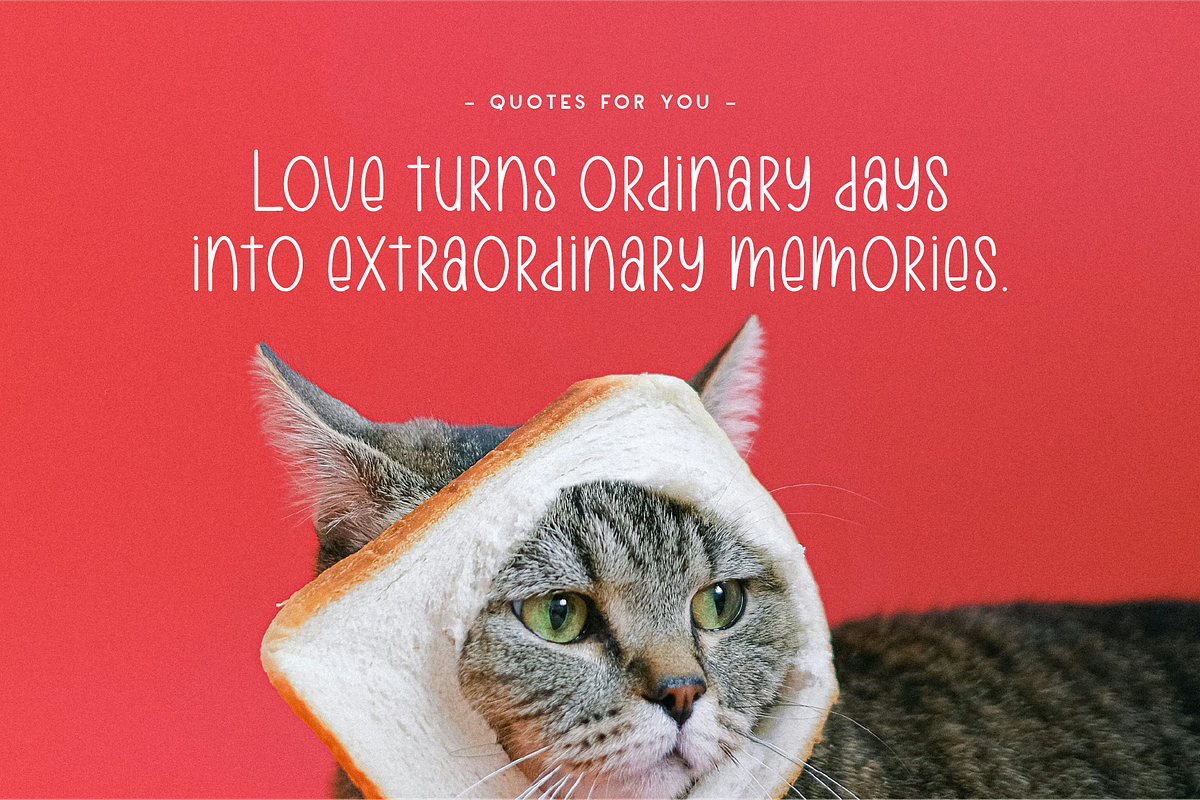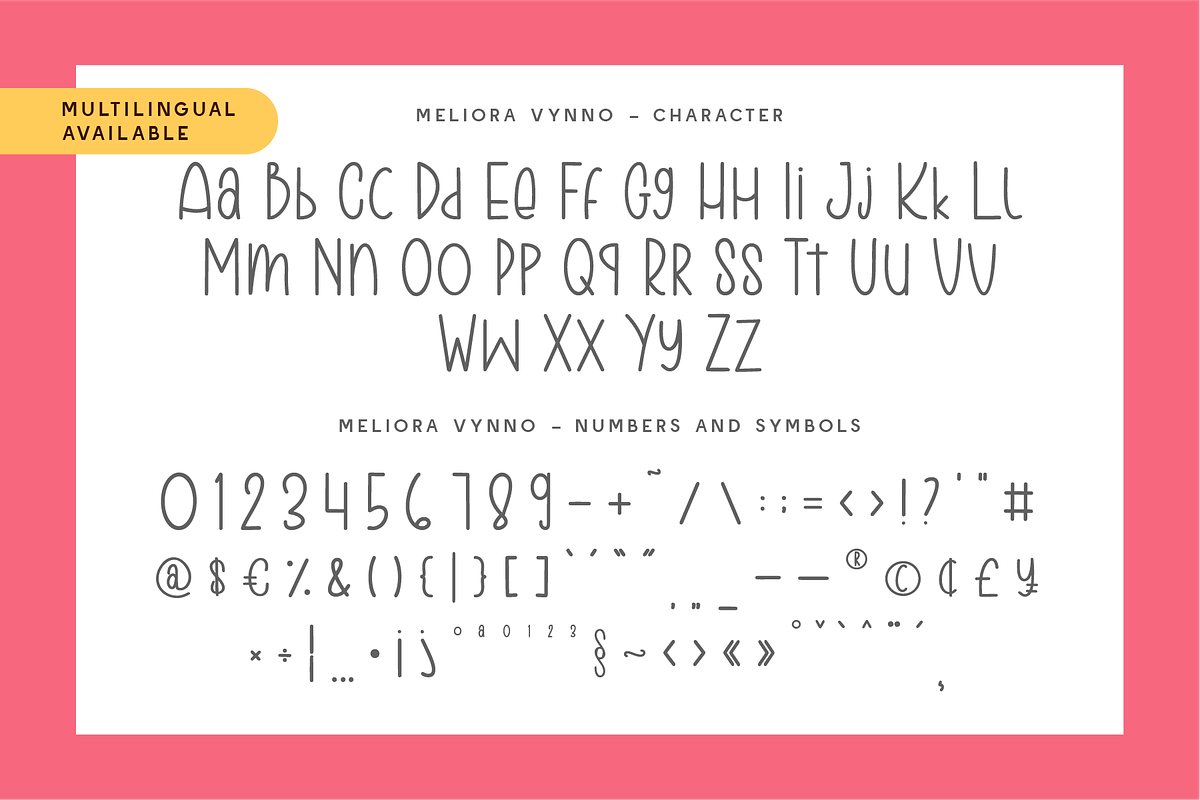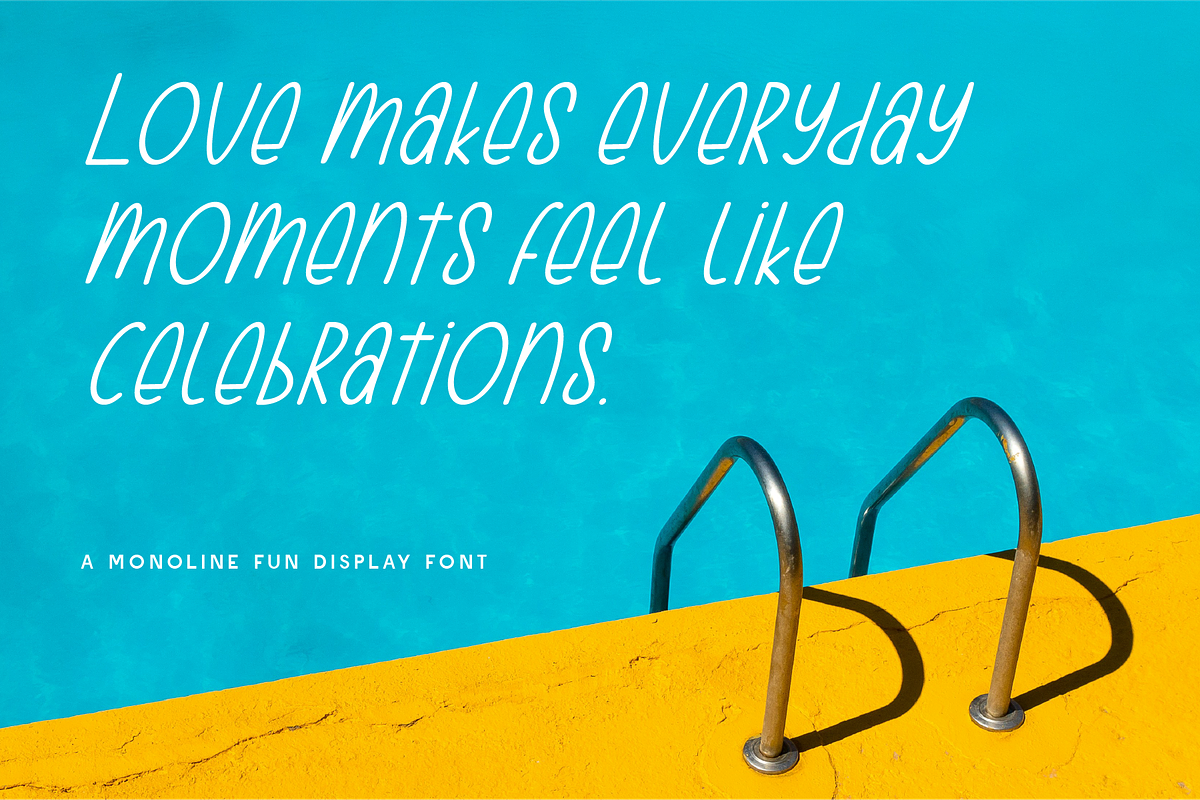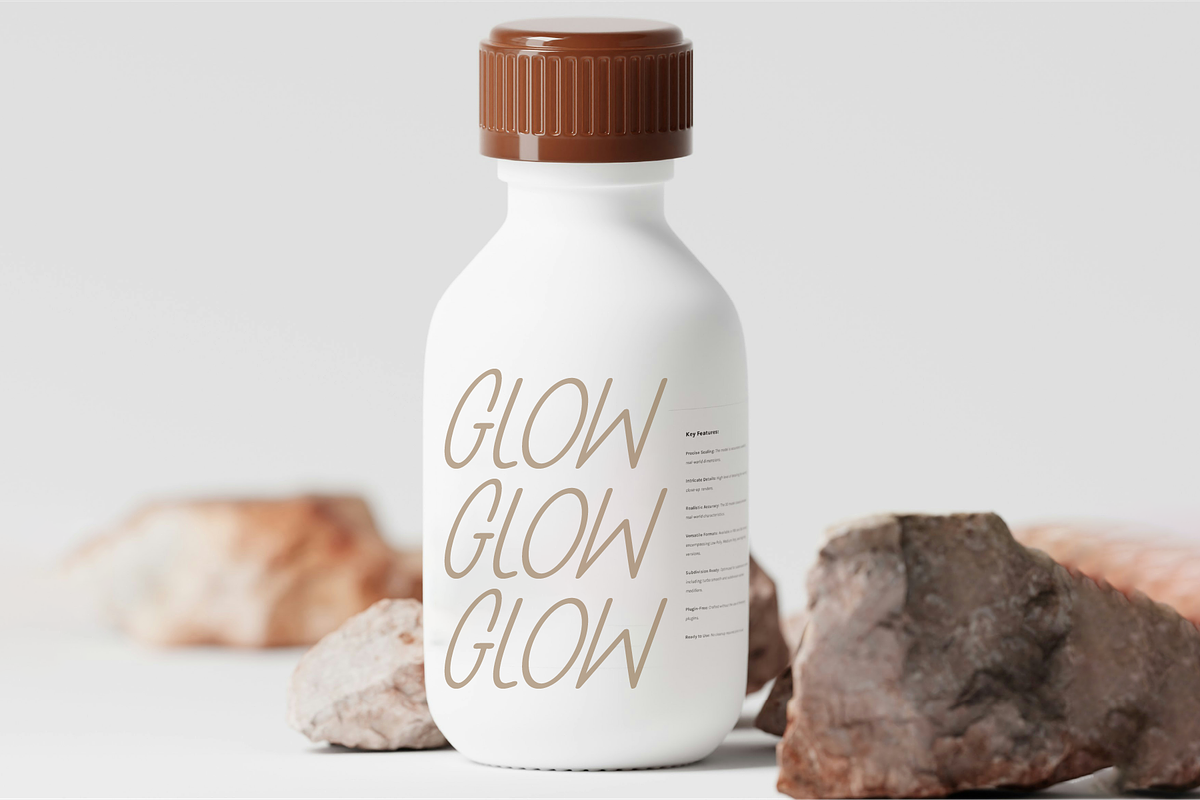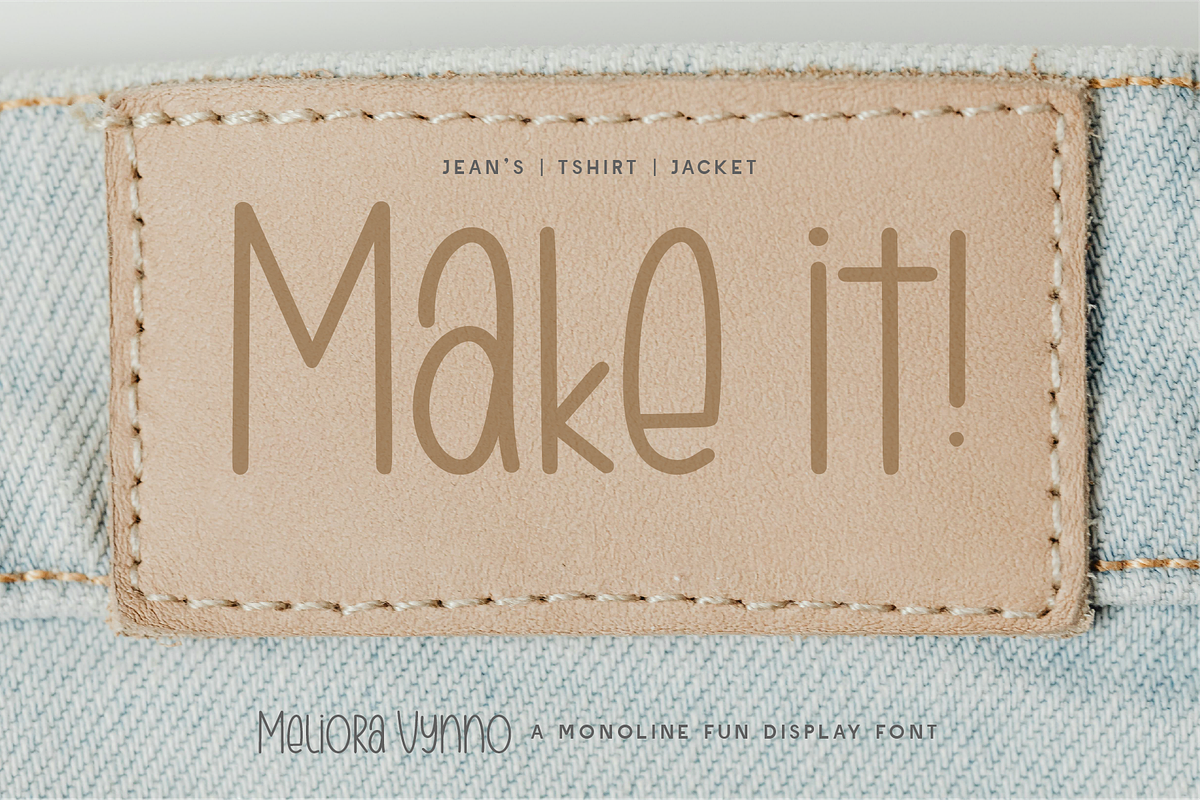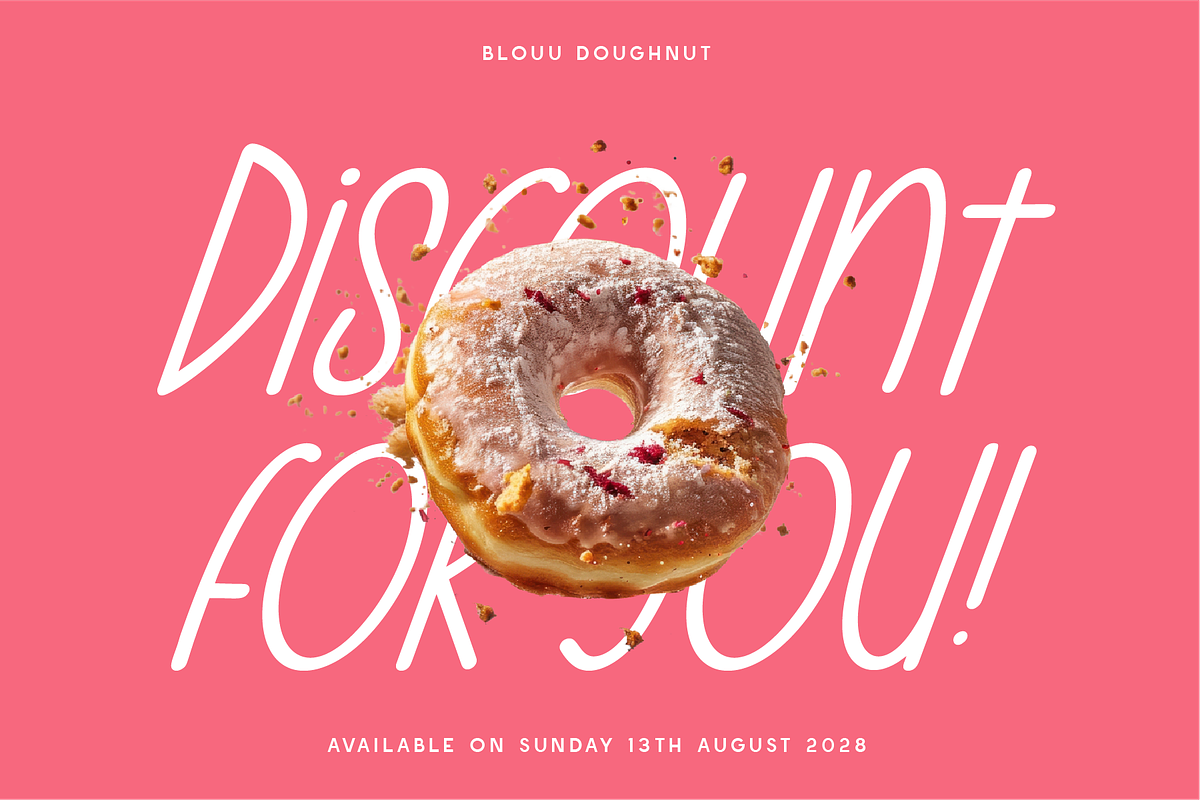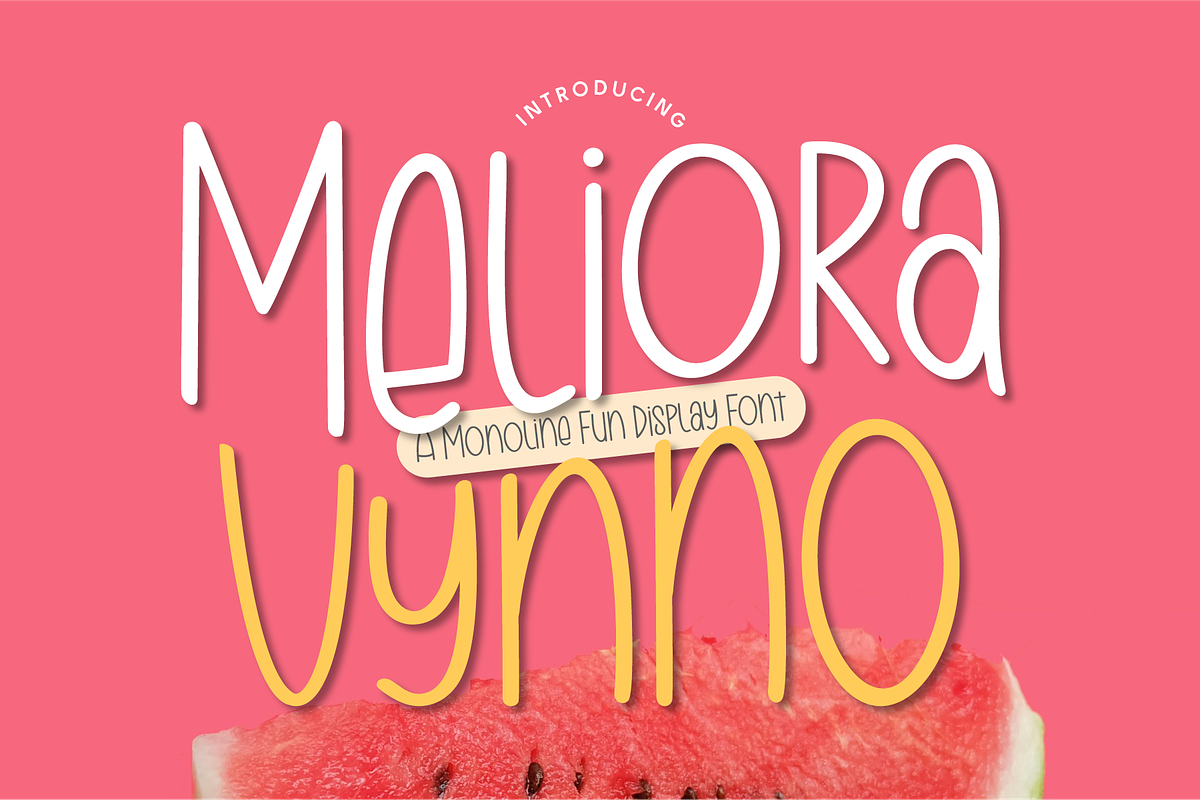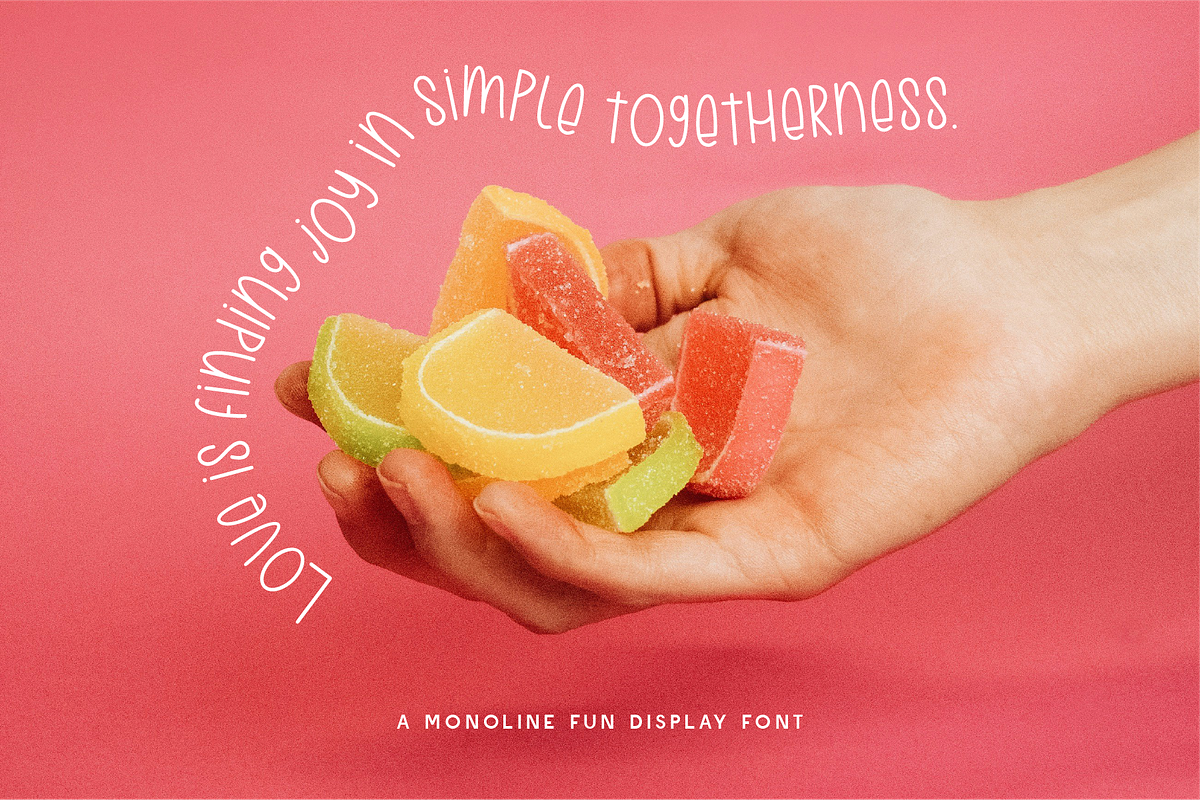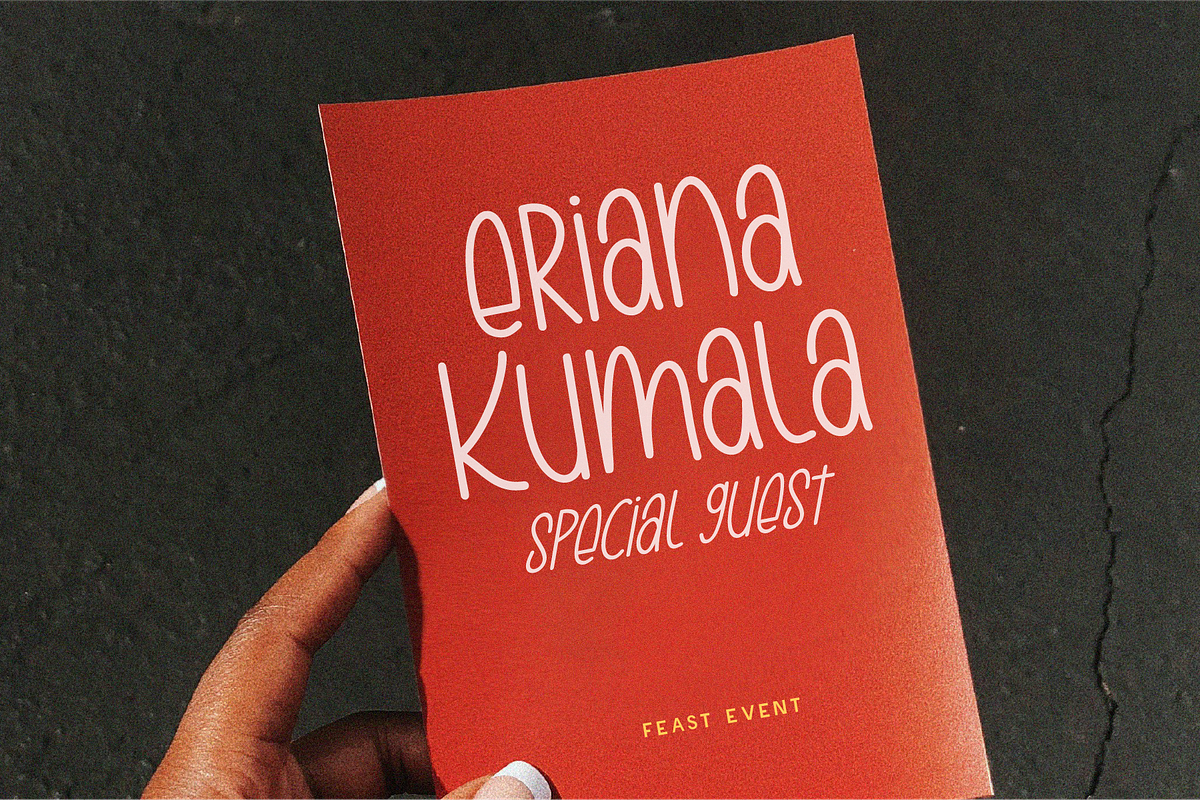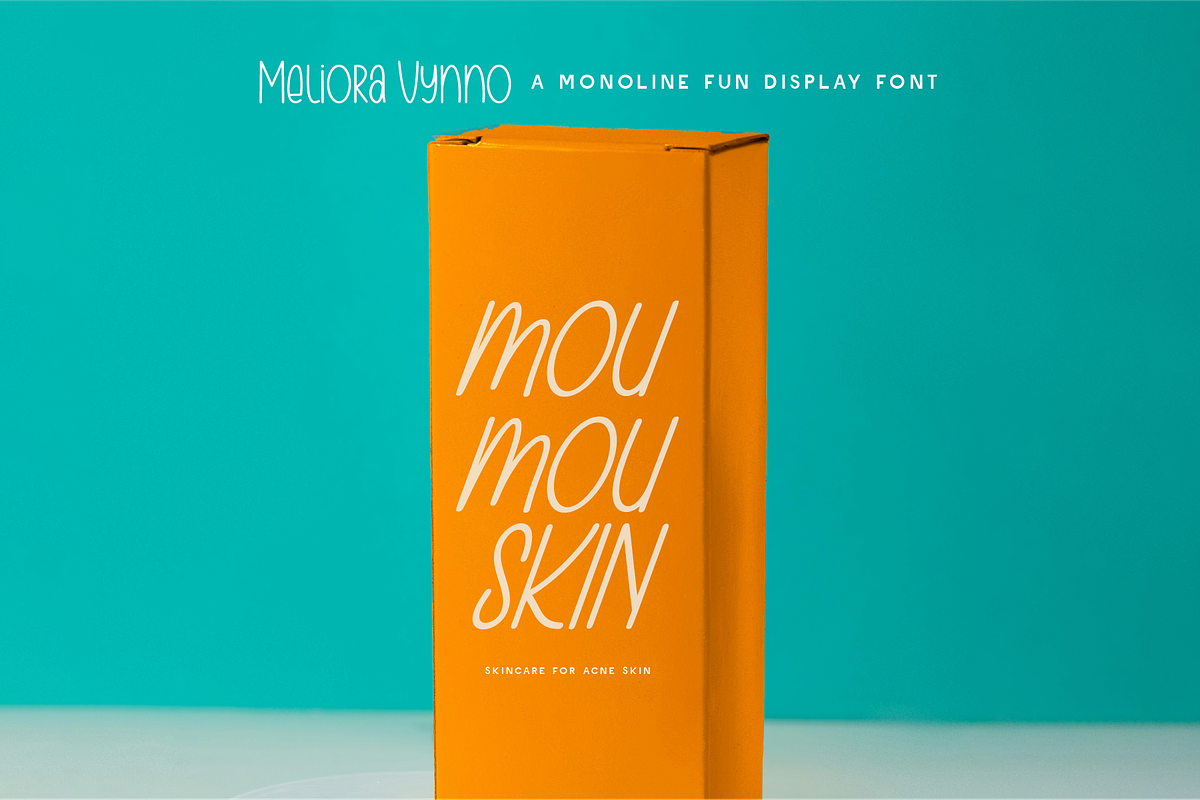
Meliora Vynno - Monoline Fun Display
Meliora Vynno – A Cheerful & Playful Monoline Display Font Brighten up your designs with Meliora Vynno, a fun and quirky monoline display font that exudes joy, energy, and creativity. With its tall, wavy letterforms and hand-drawn charm, this font brings a playful personality to any project.
Perfect for kids’ branding, playful packaging, greeting cards, posters, social media, and creative advertisements, Meliora Vynno makes every word feel lively and full of character. Its smooth, rounded lines create a friendly and inviting vibe, making it an excellent choice for designs that need to feel lighthearted and approachable.
Why Choose Meliora Vynno?
🎨 Fun & Playful: A lively font that adds personality to any design. 🍉 Perfect for Kids & Lifestyle Brands: Ideal for packaging, posters, and cheerful marketing materials. 🖋 Smooth & Versatile Monoline Style: Hand-drawn yet clean for easy readability. 🌍 Multilingual Support: Includes numbers, symbols, and various language options.
- Standard Character A-Z, a-z, 0-9, Punctuation & symbols
- Regular and Italic